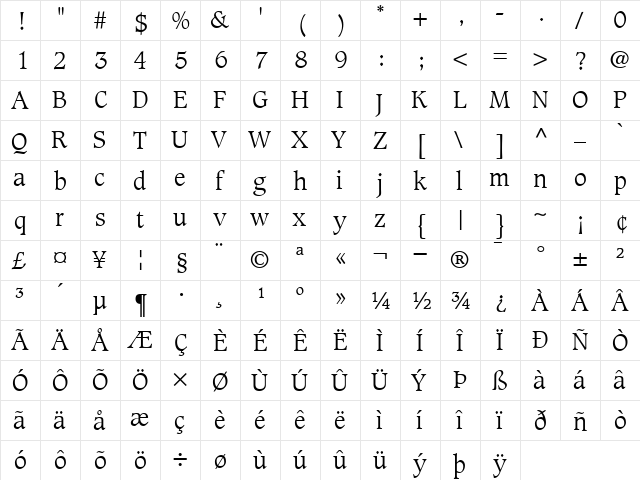
Caxton-Light Light
Design Context for Caxton-Light Typeface
Caxton-Light is a composed and adaptable typeface that performs quietly and consistently across a wide range of design contexts. The delicate stroke weight brings airiness and refinement to layouts.